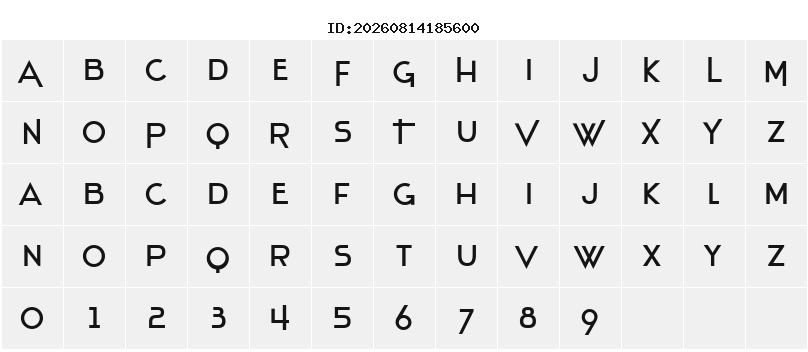
Stentiga Preview
• Font Name: Stentiga
• Designer: Ray Larabie
About Stentiga.ttf
Stentiga.ttf is a modern, elegant sans-serif font designed for ultimate readability and visual harmony. Perfect for branding, headlines, web design, and print materials.